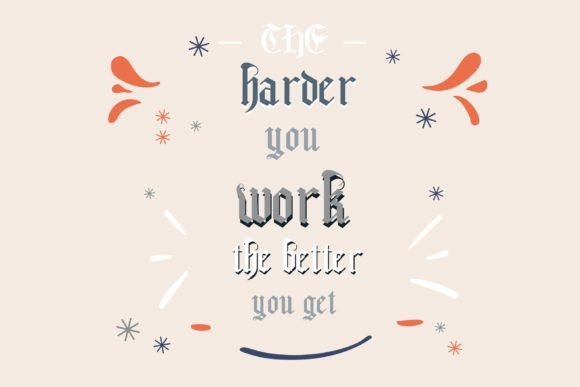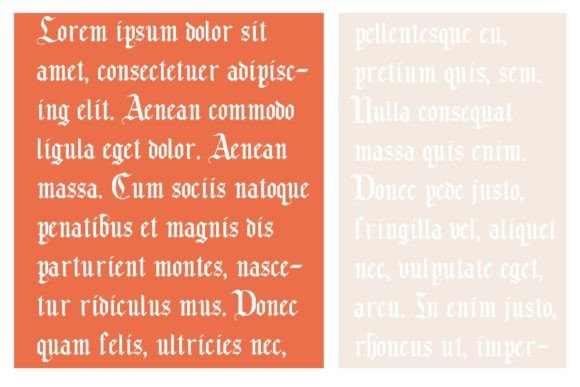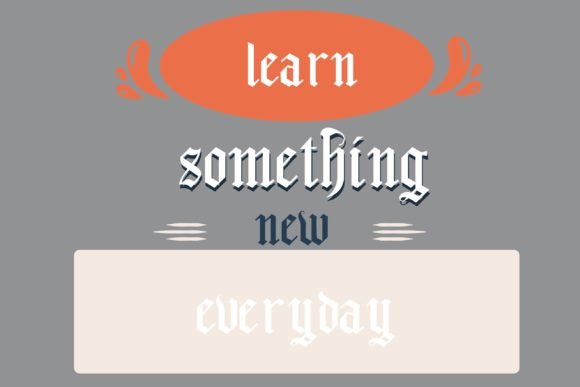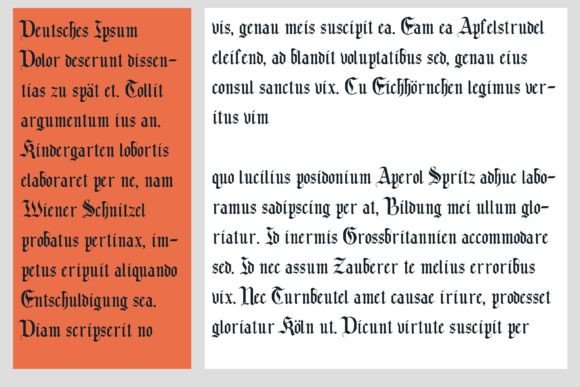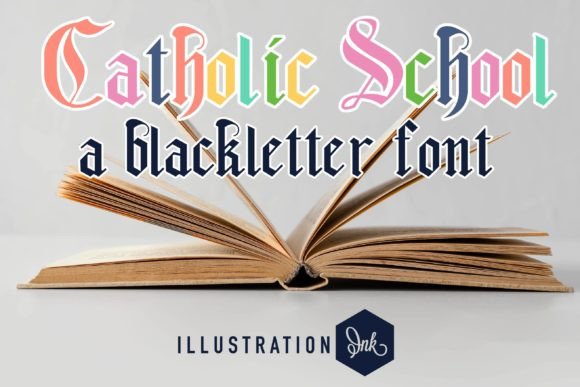
The Timeless Charm of Catholic School Font: A Designer’s Delight
I still remember the project that made me fall in love with the Catholic School font. I was working on a branding campaign for a local school, and I was struggling to find the perfect font that would convey a sense of tradition, elegance, and timelessness. That’s when I stumbled upon Catholic School, an old-school blackletter font that instantly caught my attention. Its incredibly distinct and formal style won me over, and I’ve been obsessed with it ever since.
- ✅ Extremely distinctive and recognizable style that’s perfect for creating a lasting impression
- ✅ Highly legible, even at small font sizes, making it ideal for body text
- ✅ Works beautifully for titles, headings, and quotes, adding a touch of sophistication to any design
- ✅ Supports OpenType features, allowing for advanced typographic control
A Few Quirks to Keep in Mind 🤔
- ⚠️ May not be the best choice for very long blocks of text, as it can feel a bit formal and dense
- ⚠️ Some characters, like the lowercase ‘a’ and ‘e’, can be a bit tricky to read at very small sizes
The Story Behind Catholic School Font
Catholic School font was inspired by traditional blackletter typography, with a nod to the classic fonts of the Middle Ages. Its designer sought to create a font that would evoke a sense of history, tradition, and timelessness, while still being highly legible and versatile.
Q: What makes Catholic School font so unique?
A: Catholic School font is characterized by its distinctive blackletter style, which sets it apart from more modern fonts.
Q: Can I use Catholic School font for body text?
A: While Catholic School font is highly legible, it may not be the best choice for very long blocks of text. It’s better suited for titles, headings, and quotes.